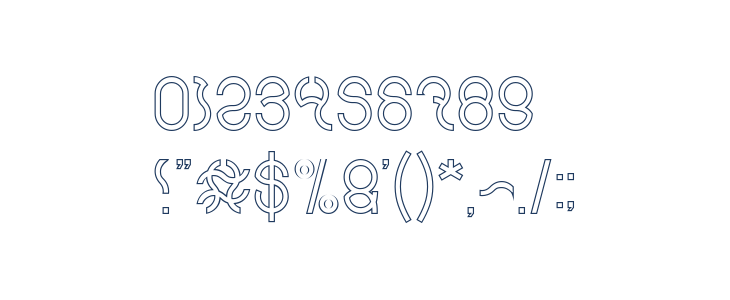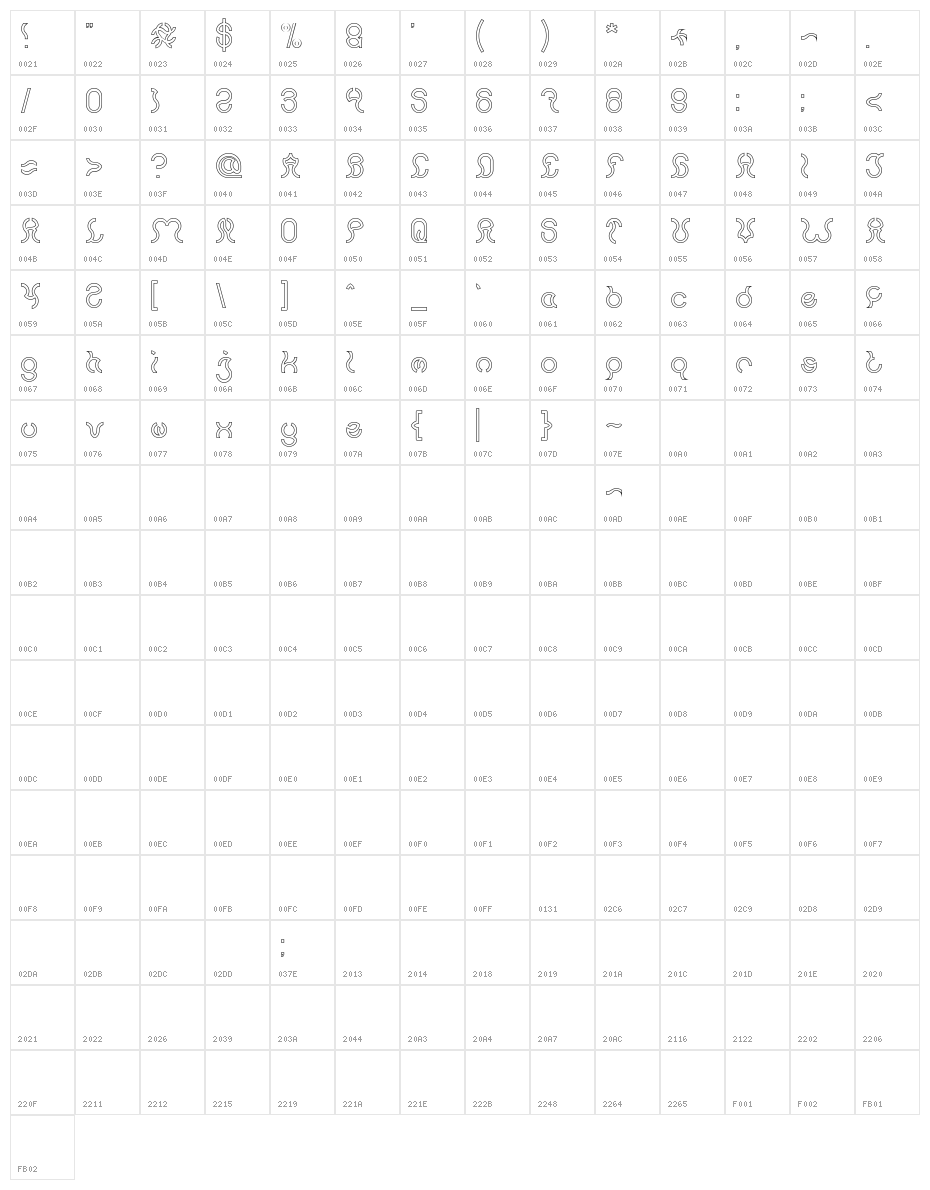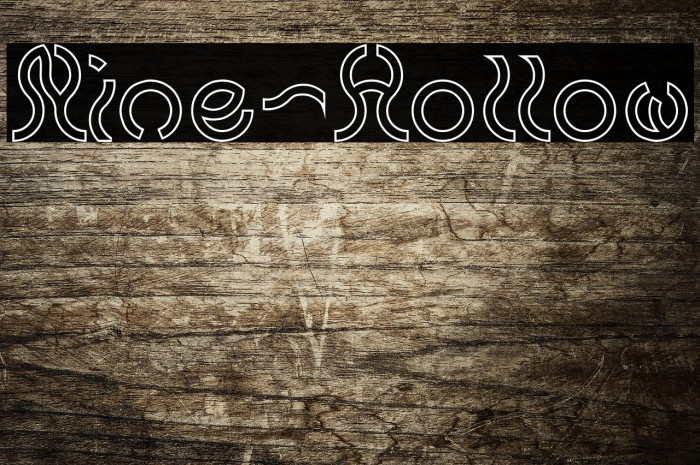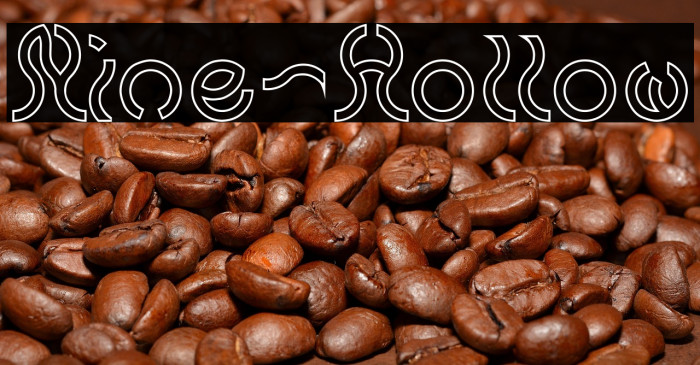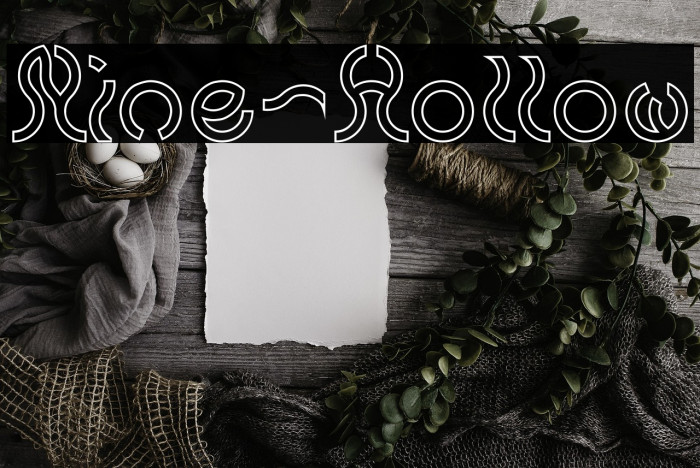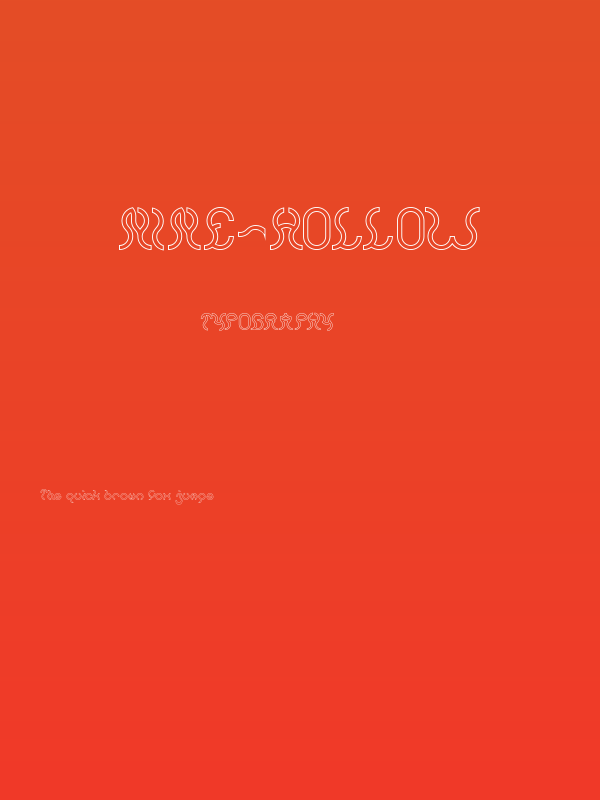
Nine-Hollow Font
Nine-Hollow Description
This font features a unique hollow design with a decorative flair, characterized by its intricate curves and open spaces within each character. The uppercase and lowercase letters maintain a consistent style, with a playful yet sophisticated appearance. The numbers and special characters follow the same aesthetic, making the font cohesive across all elements. Its distinct style is eye-catching and suitable for creative projects that require a bold statement. The font's hollow nature gives it a light and airy feel, while the decorative elements add a touch of elegance.
| Use Case | Logos, Posters, Artistic Designs |
| Proposed Projects | Ideal for posters, logos, branding, and artistic designs where a bold and decorative font is needed. |